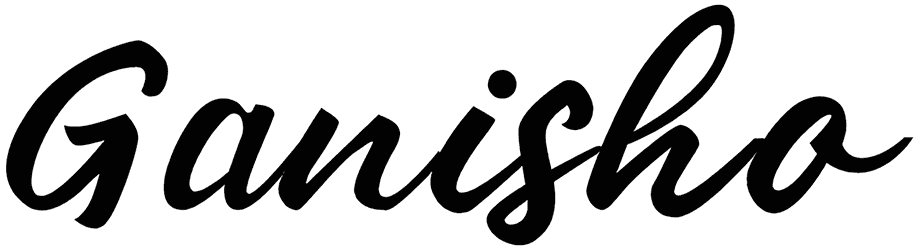
Ganisho Font
Designed bySheillaType
Capture the beauty of a handwritten font in a distinctive display with Ganisho. It conveys a sense of subtlety and softness and has a bold, italic style. This font doesn’t contain any numerals or punctuation and is also unreadable in the long body text. You can use it for product packaging, movie posters, greeting cards, homeware designs, and party invitations.